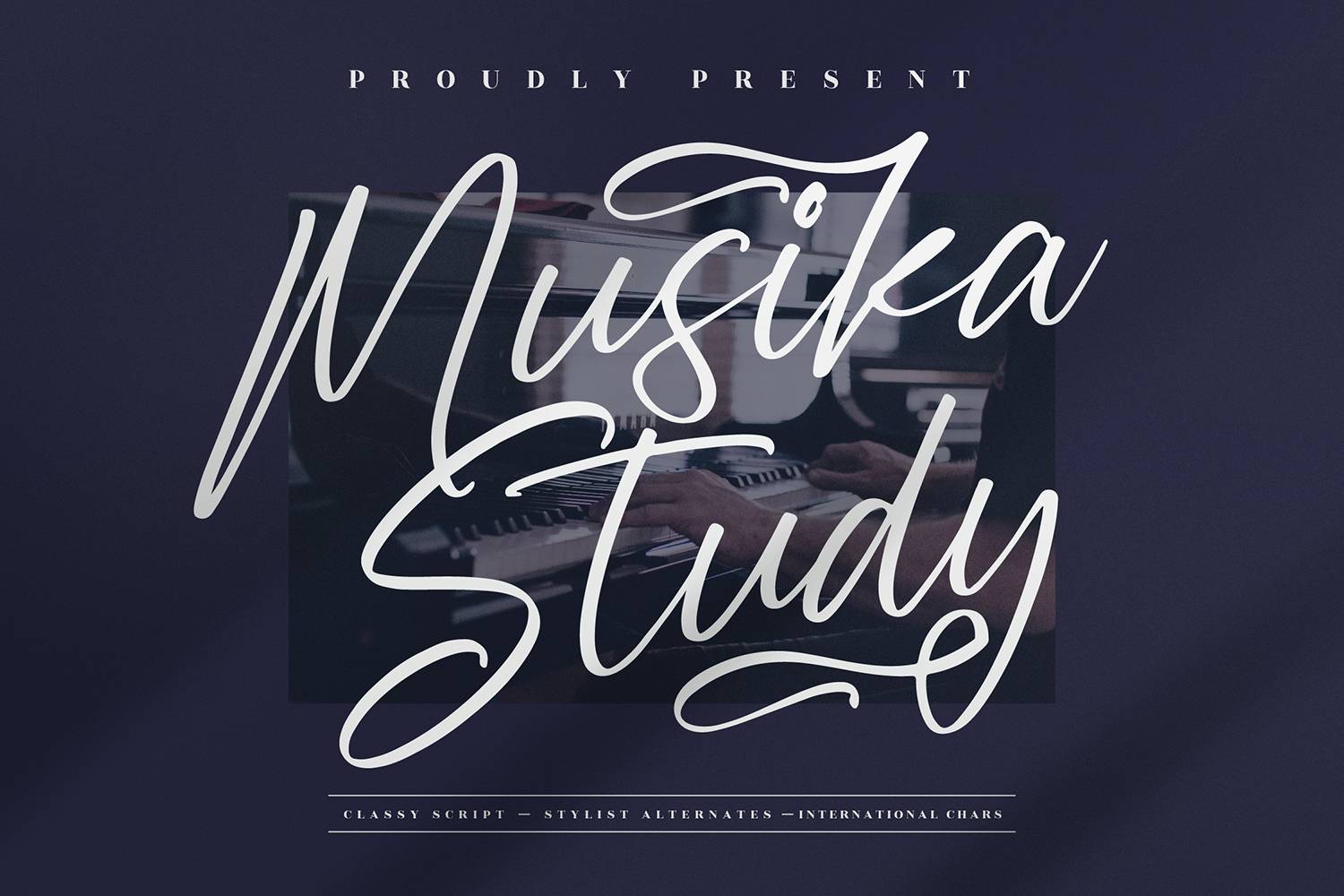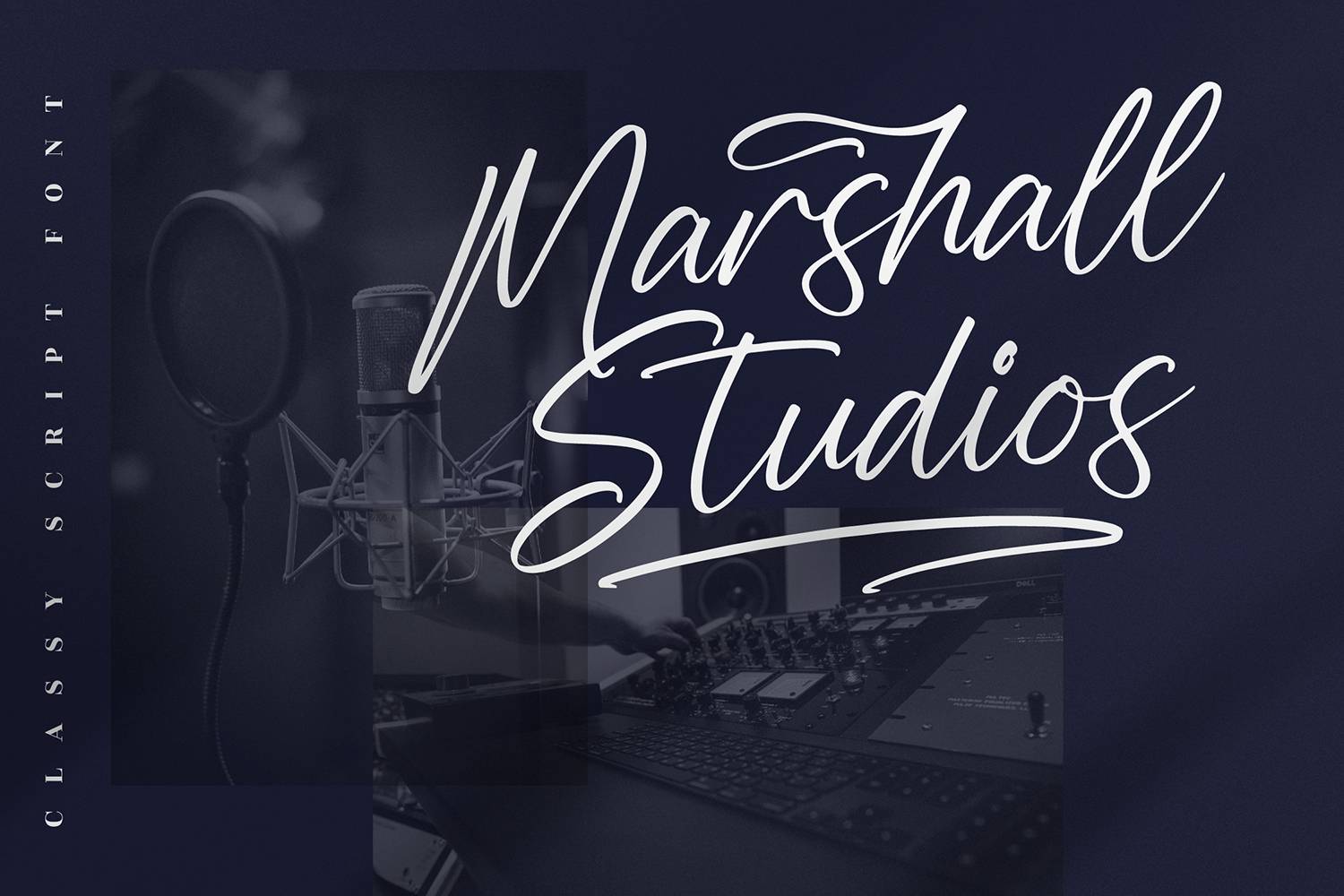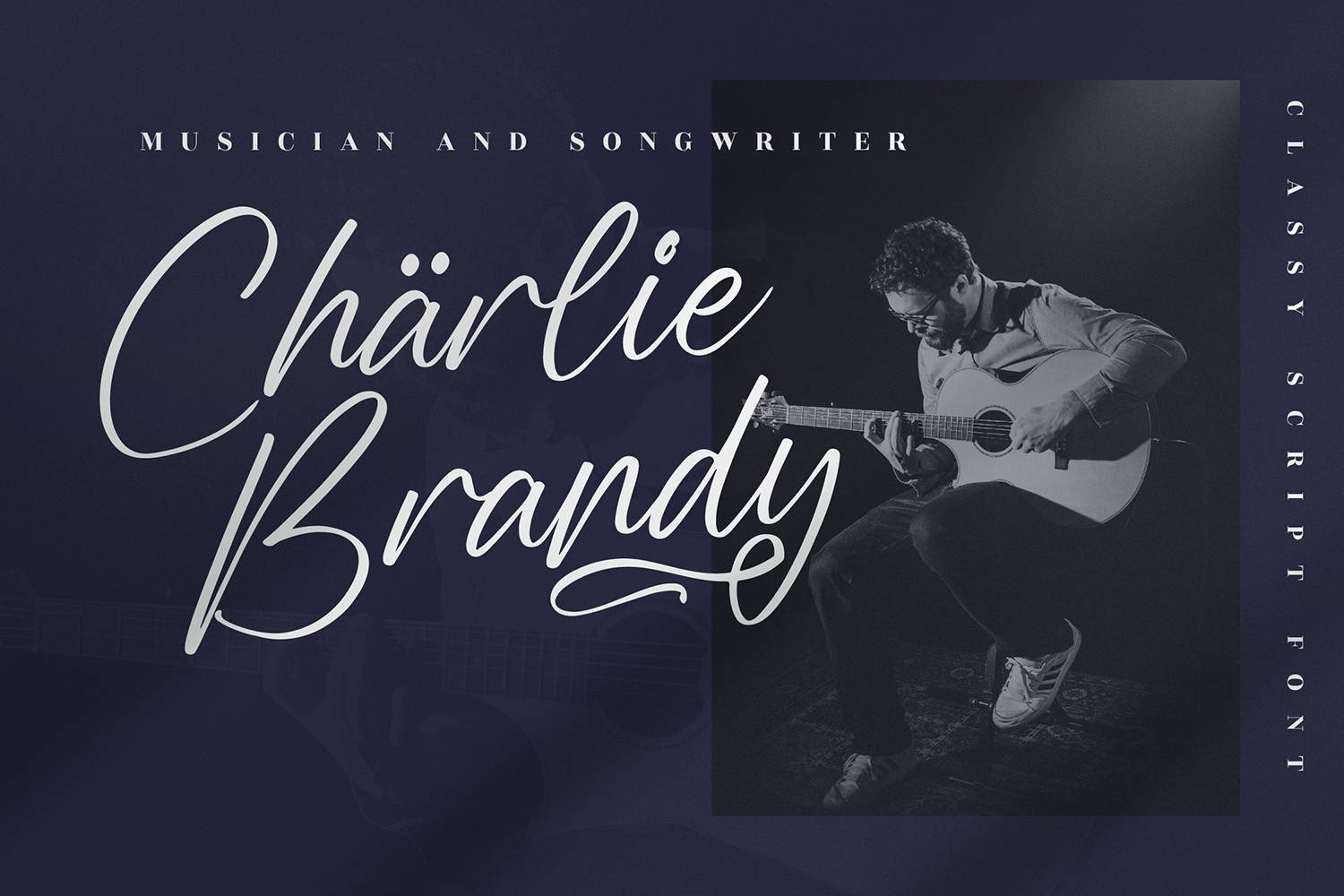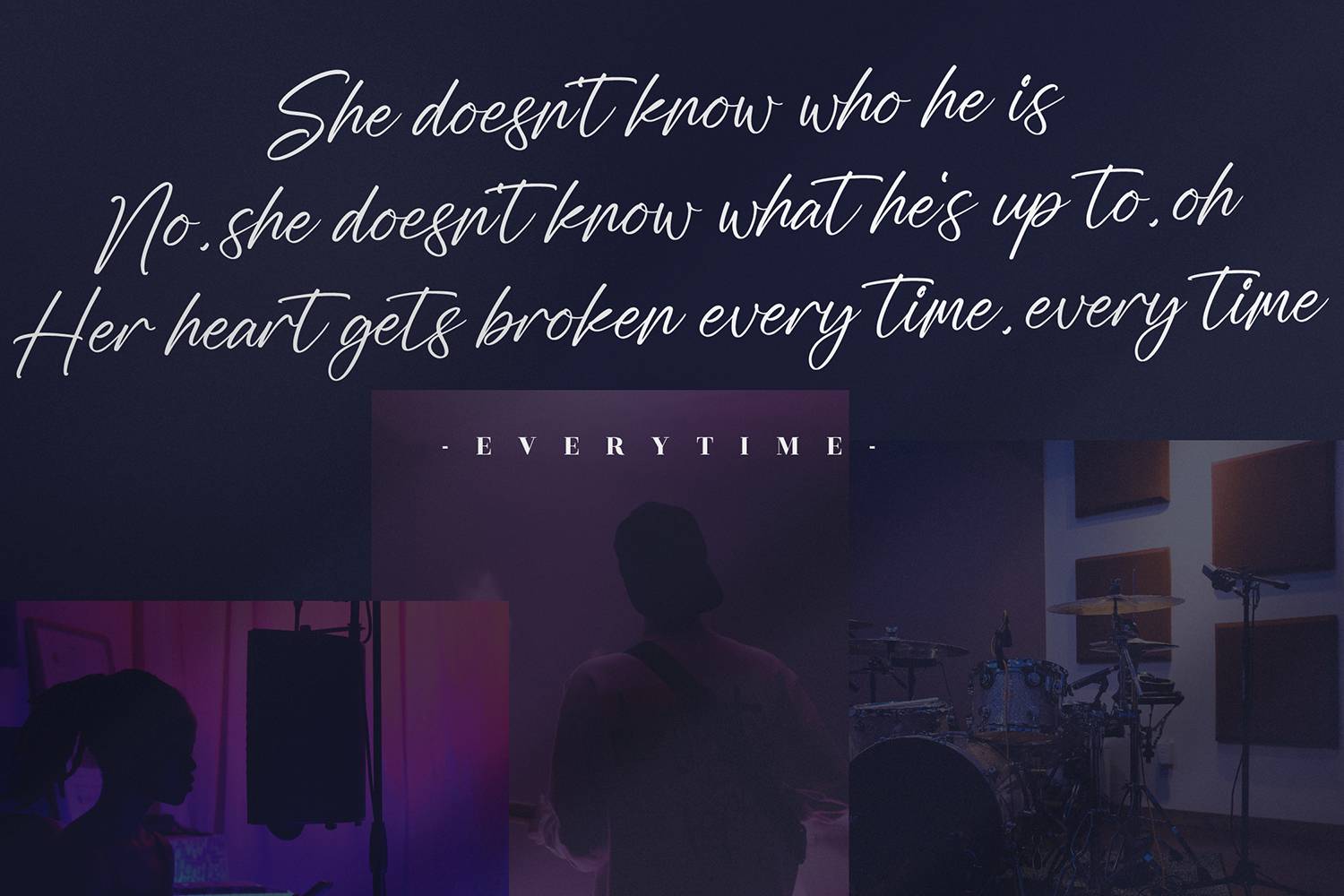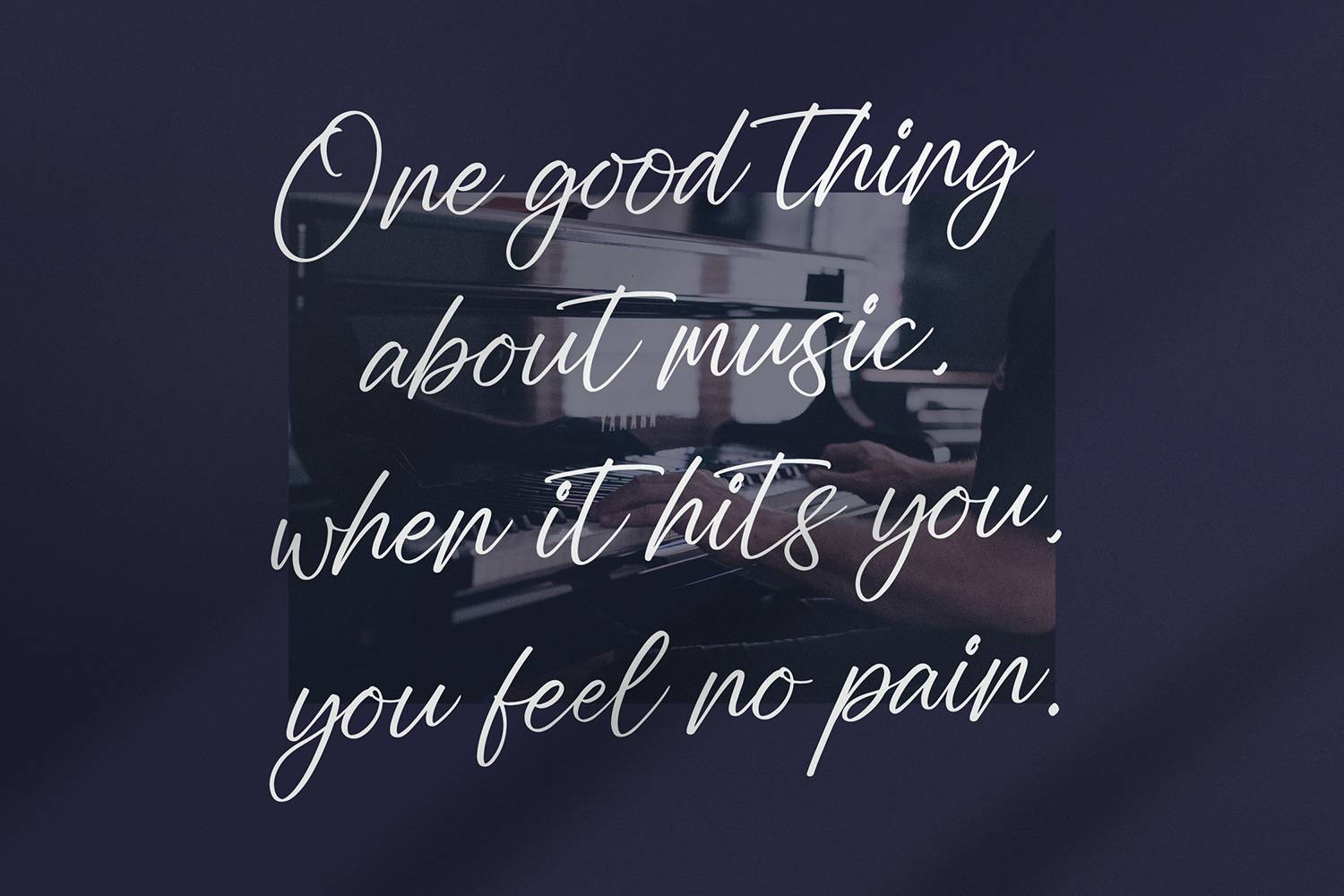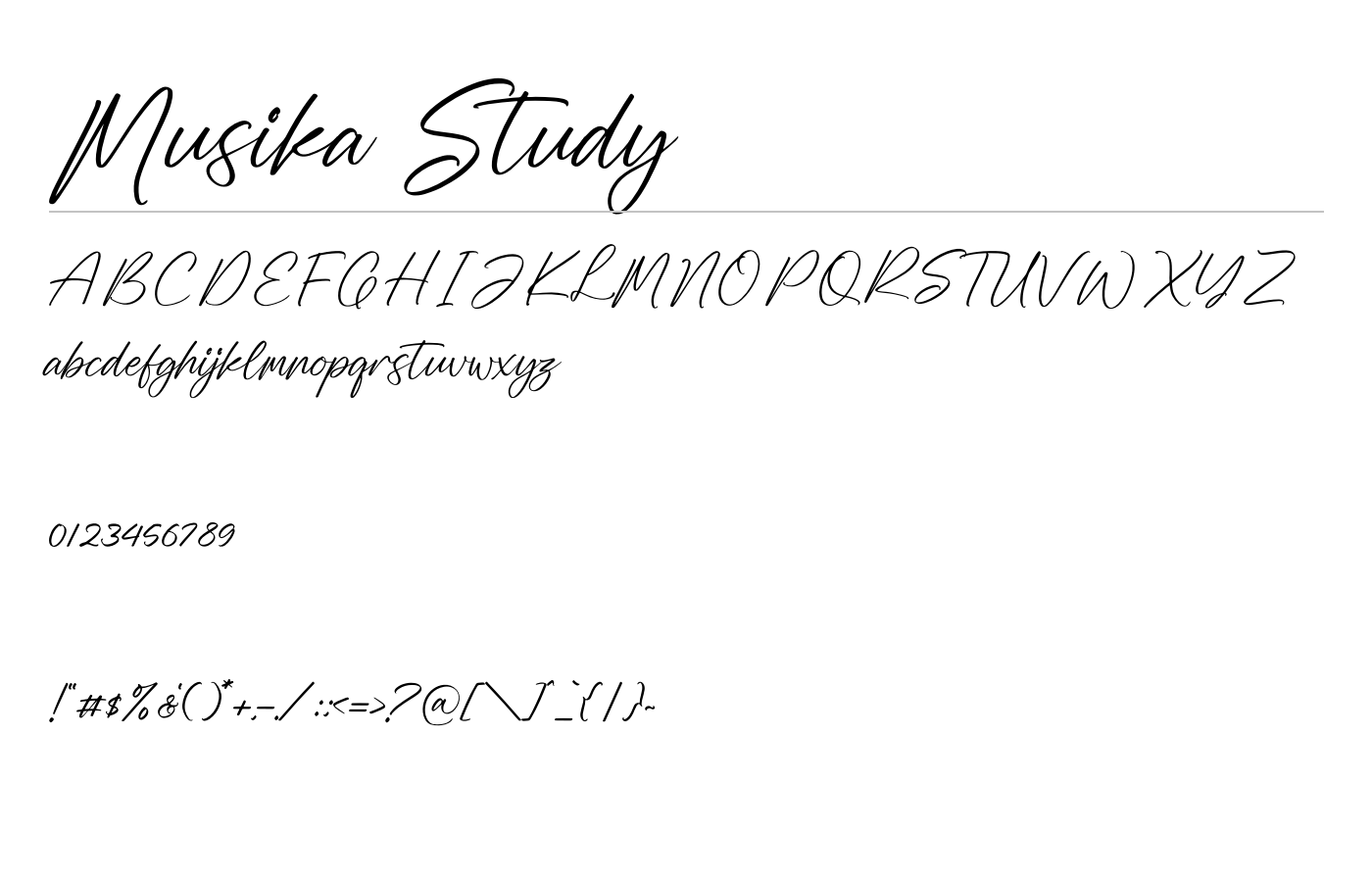
Musika Study is a delicate and elegant script font that captures a natural, handwritten feel with its flowing, slender strokes and moderate contrast. Its light weight and airy spacing lend a sense of sophistication and warmth, making it ideal for creative projects that seek a personal touch, such as invitations, branding, and editorial designs. This font works beautifully where a refined, stylish, and approachable aesthetic is desired.
Musika Study Font
About Musika Study Font